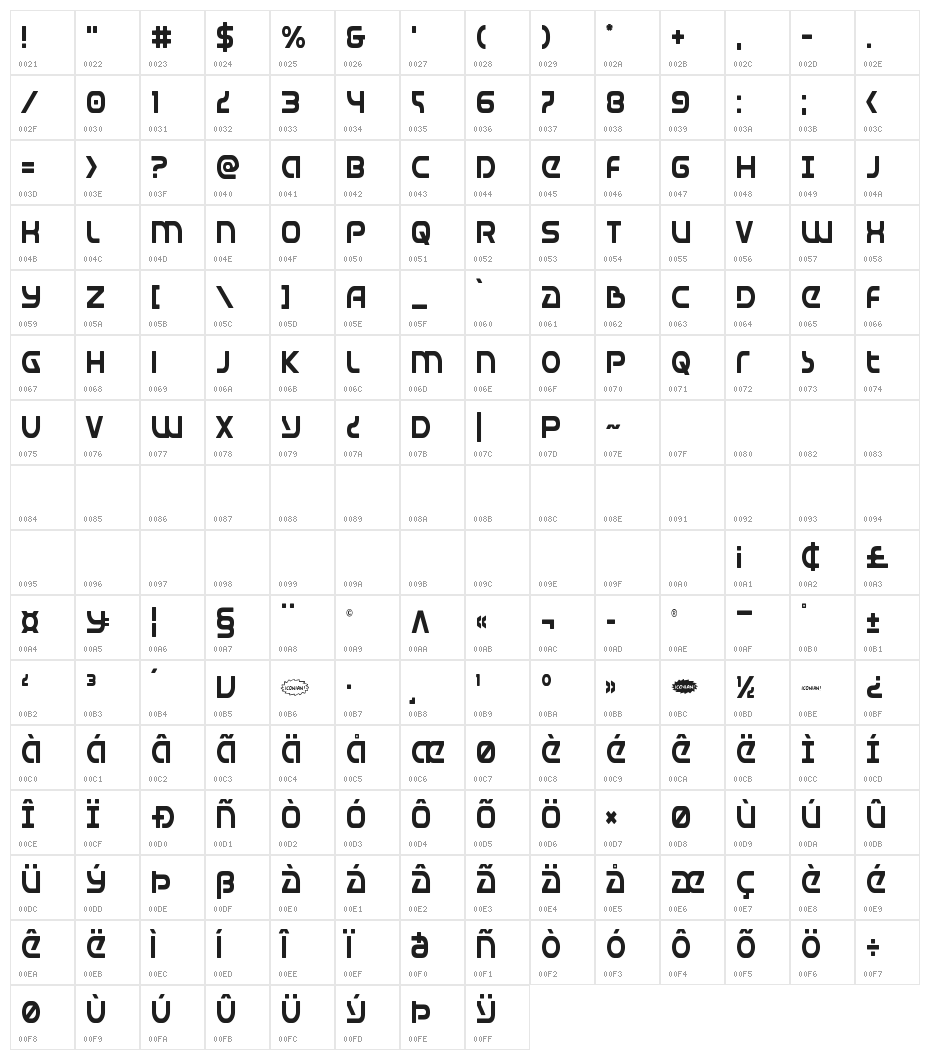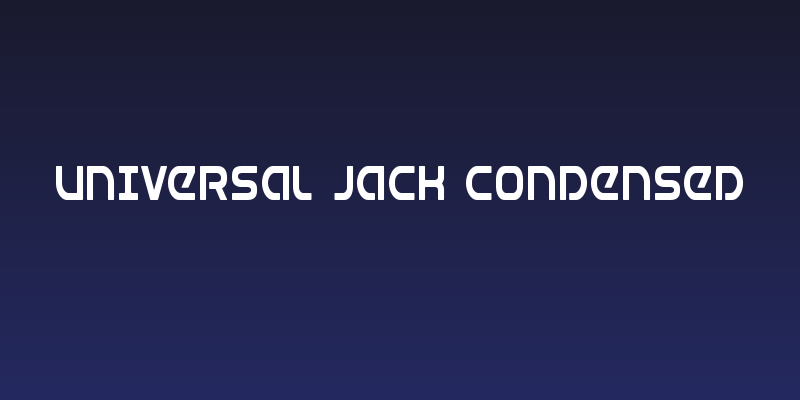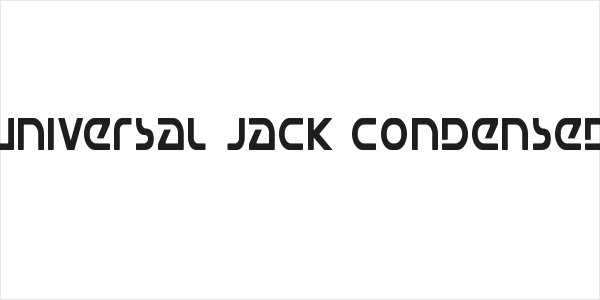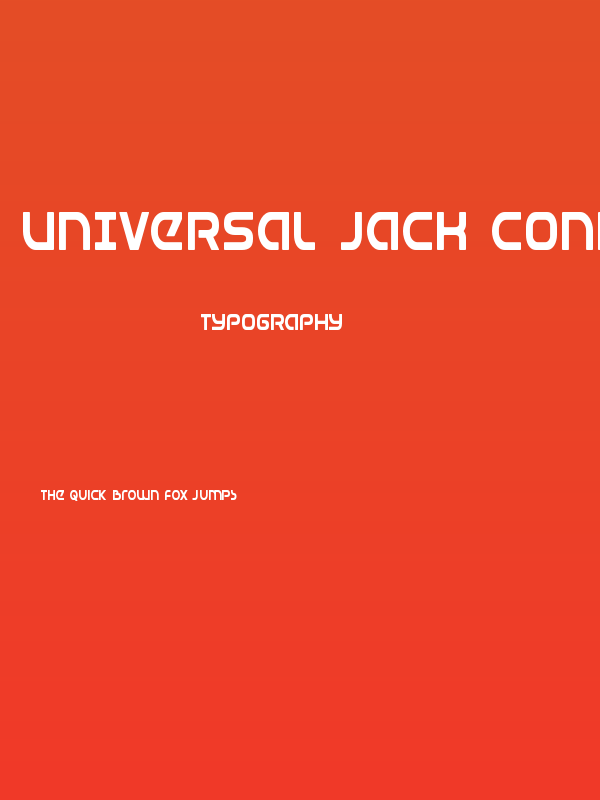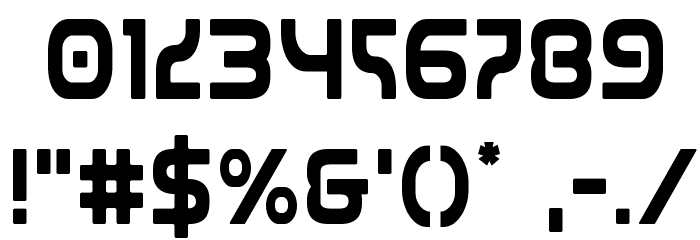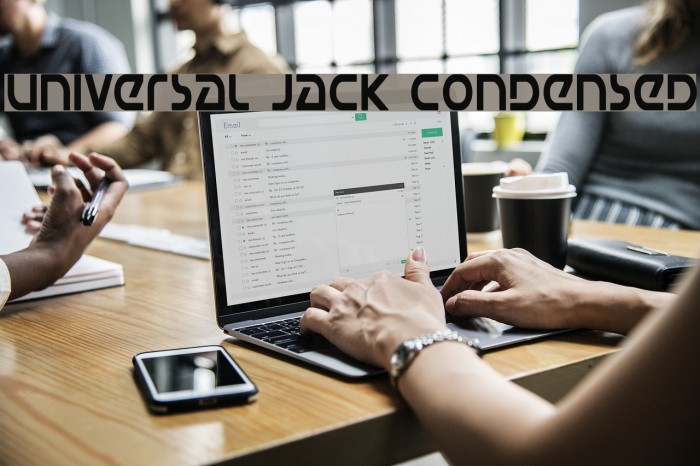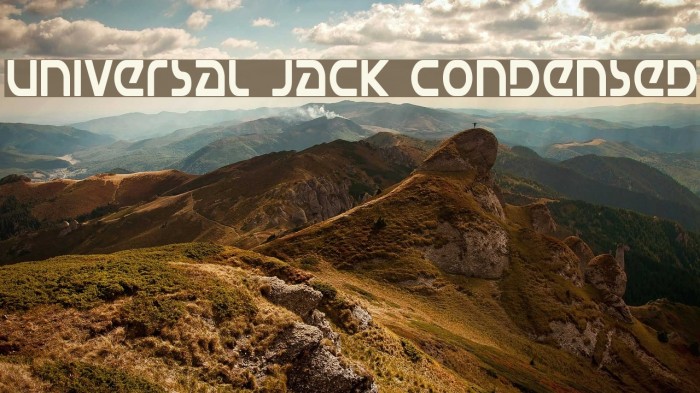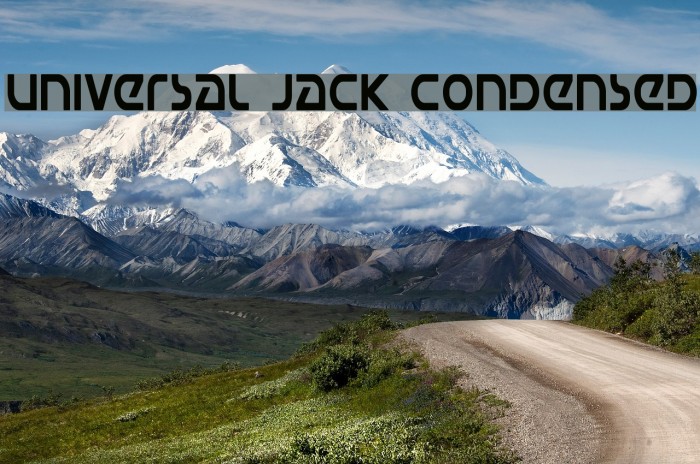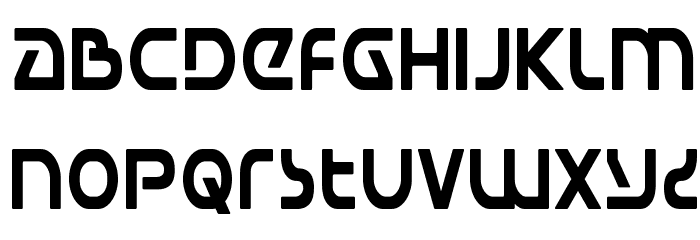
Universal Jack Condensed Font
Universal Jack Condensed Description
This font features a bold, geometric design with a futuristic flair. The characters are condensed, giving a compact and efficient appearance. The rounded edges and uniform stroke width contribute to a modern and sleek aesthetic. The uppercase and lowercase letters maintain a consistent style, with unique angular cuts that add a distinctive touch. The numerals and special characters are designed to match the overall theme, ensuring a cohesive look across all elements. This font is ideal for projects that require a strong, contemporary presence.
| Use Case | Headlines, Logos, Digital Interfaces |
| Proposed Projects | Ideal for technology branding, modern posters, futuristic interfaces, and digital media. |